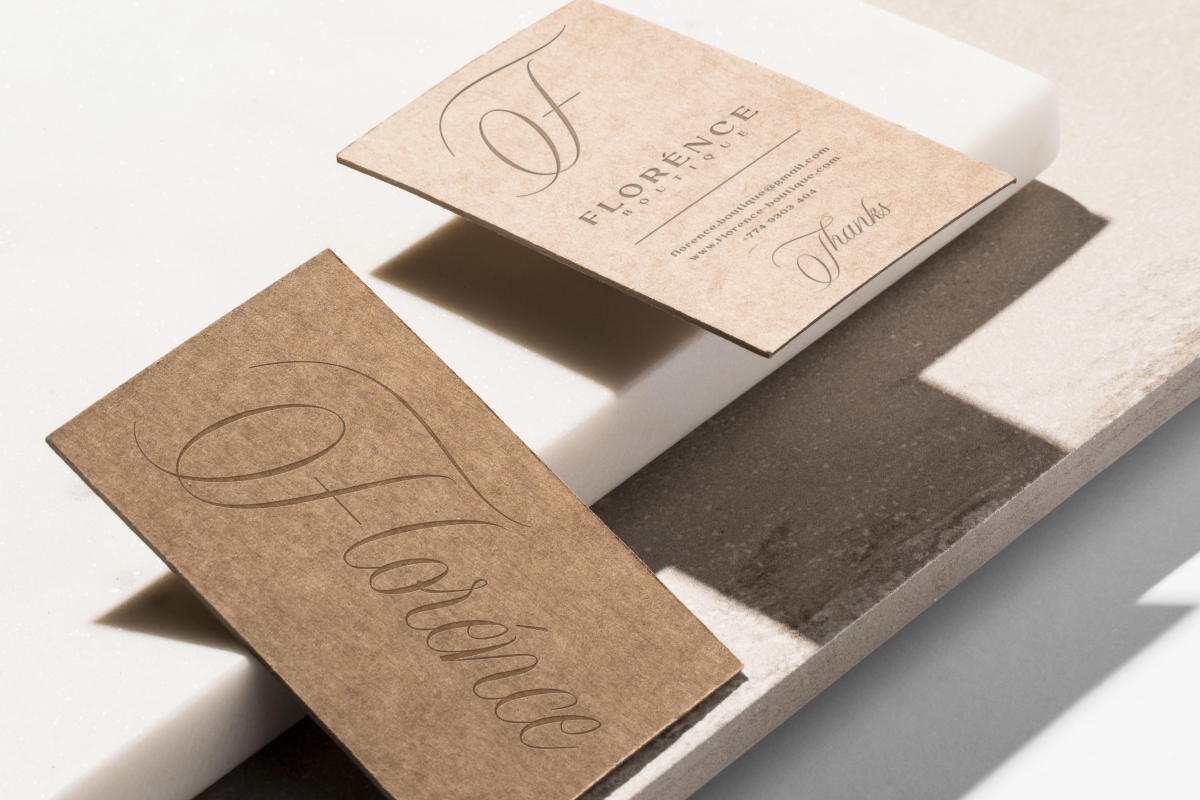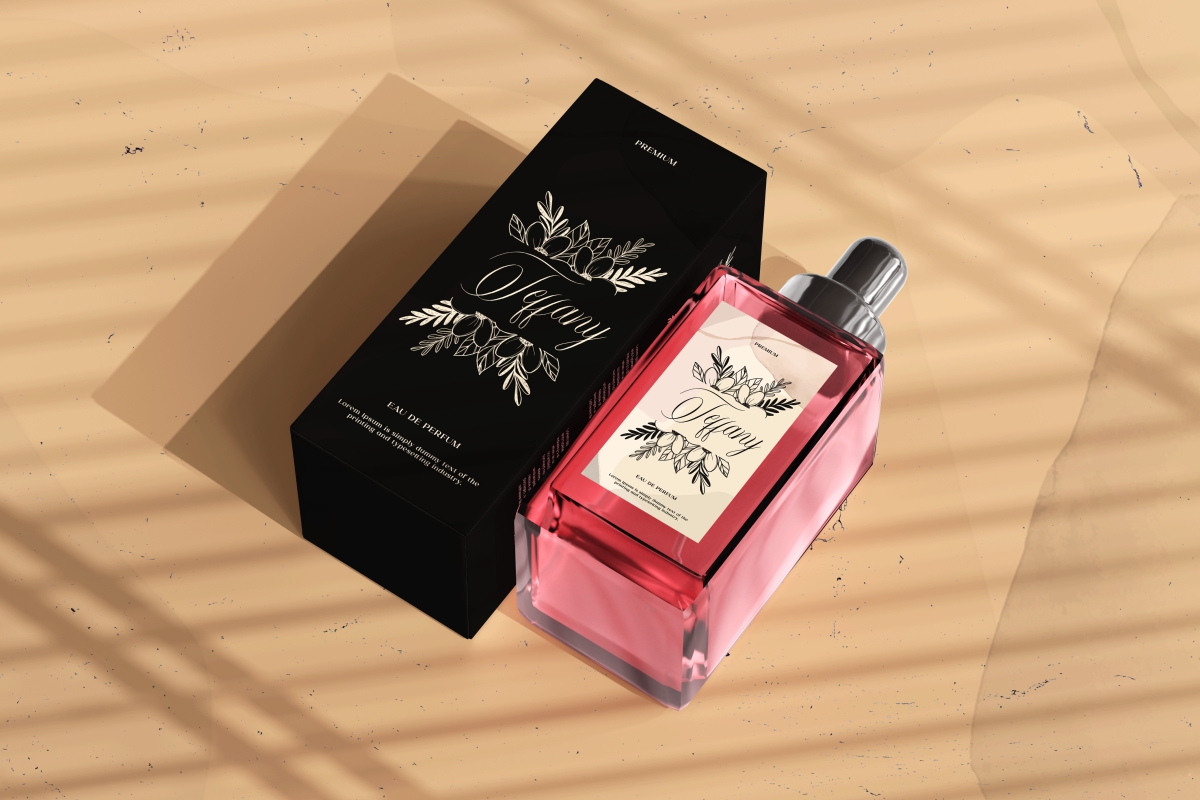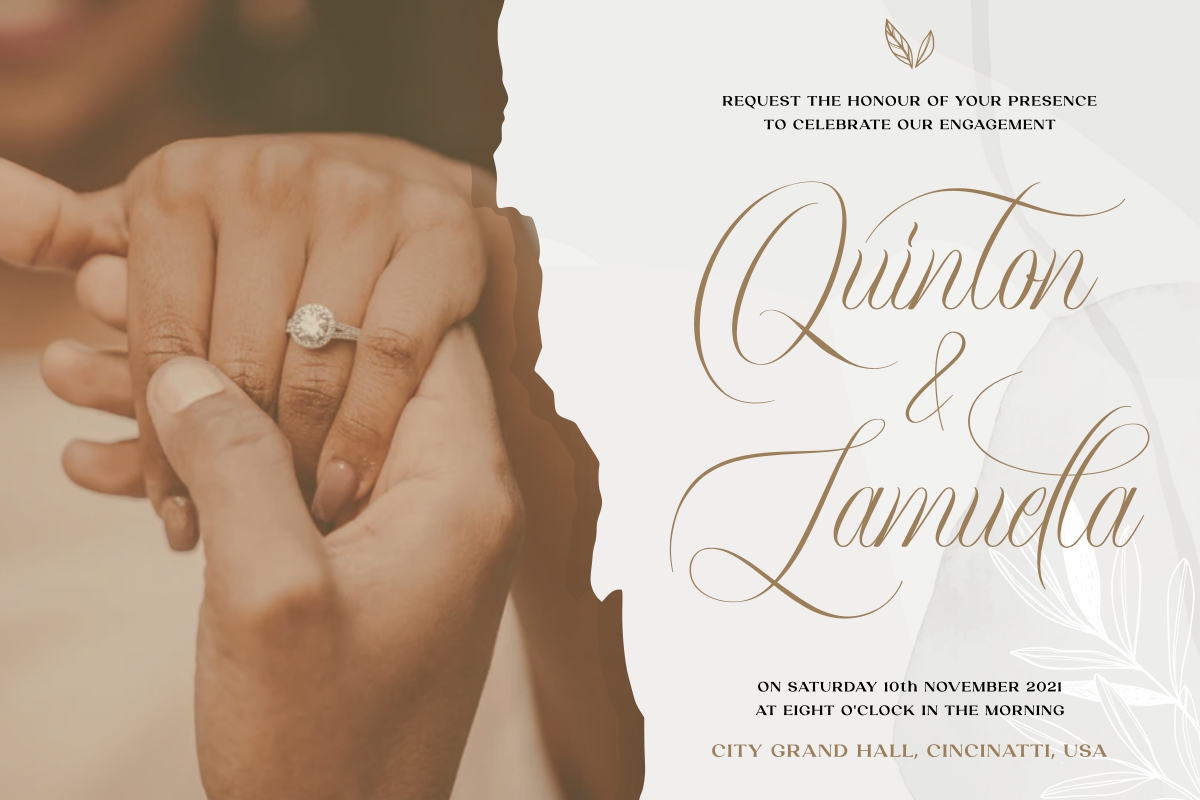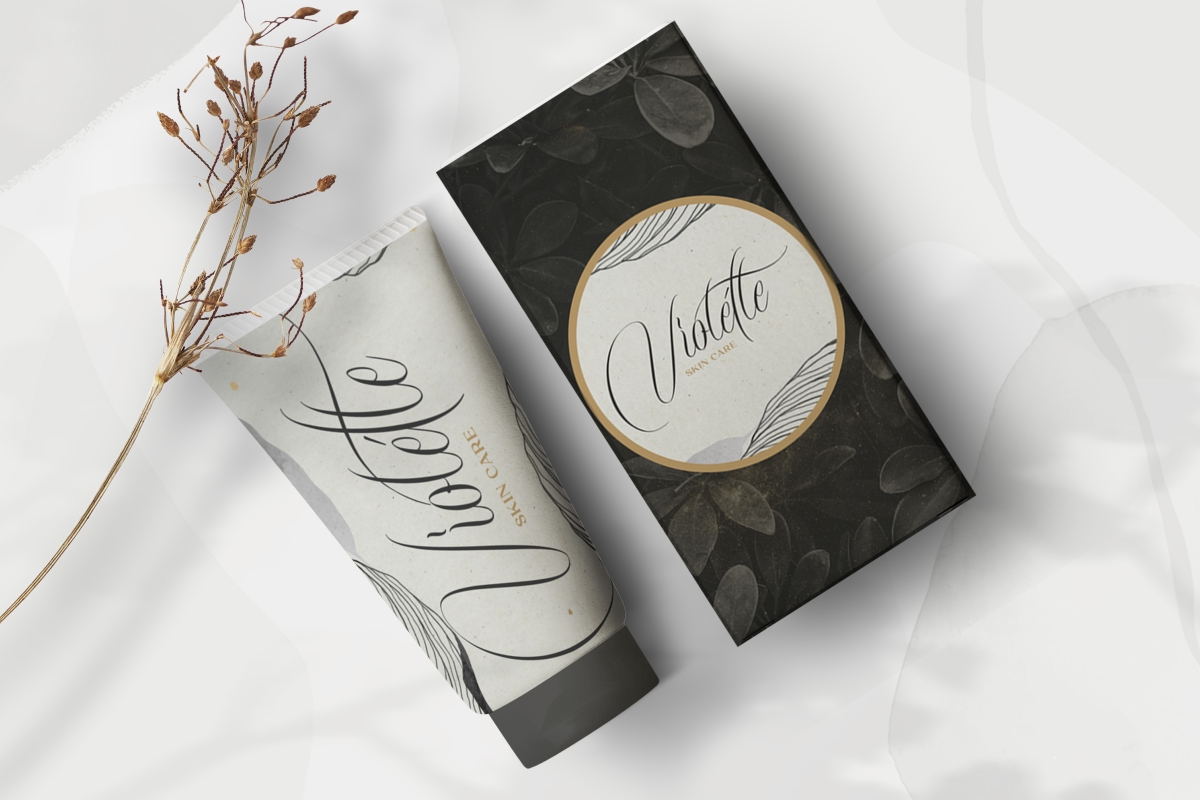
Engagement Time Font
Engagement Time Calligraphy Font
This is a stunning calligraphic font with exclusive characters style. The font will make your design looks elegant, luxurious and sophisticated in hand signature calligraphy style. The font will be great for brandings, invitation, promotions, tittles, headlines etc